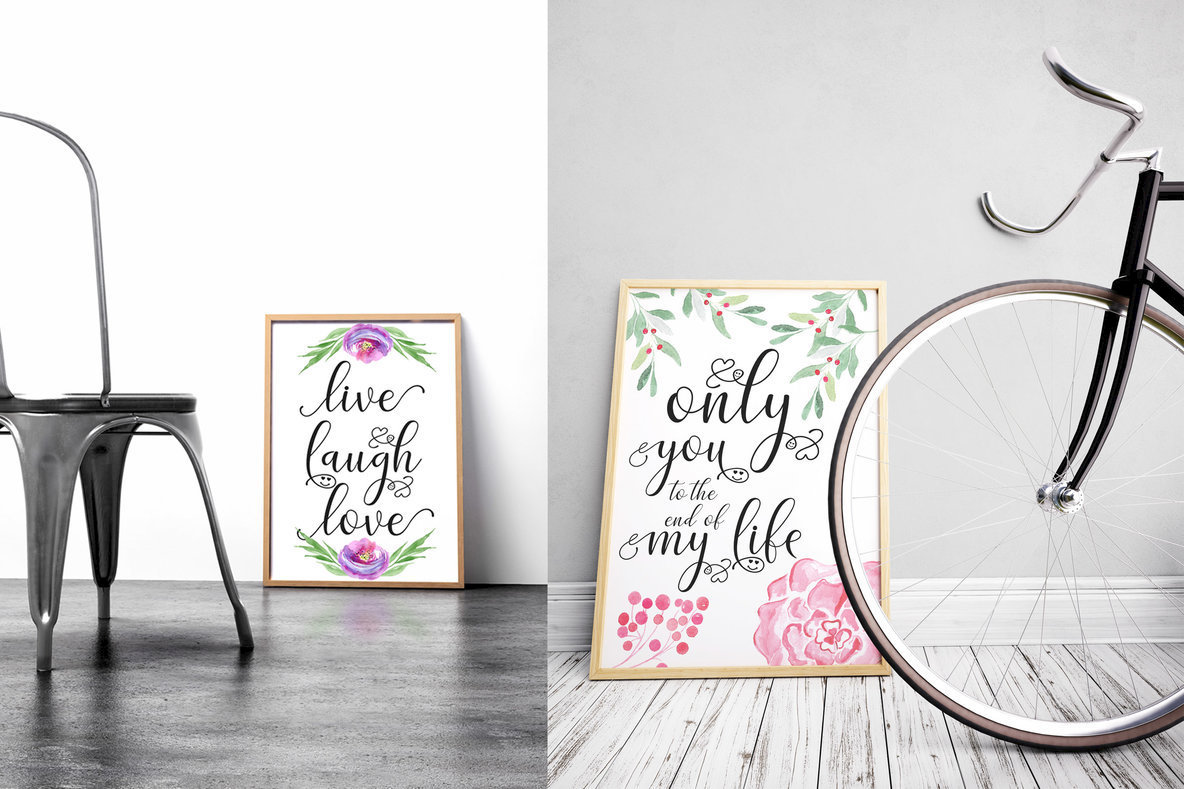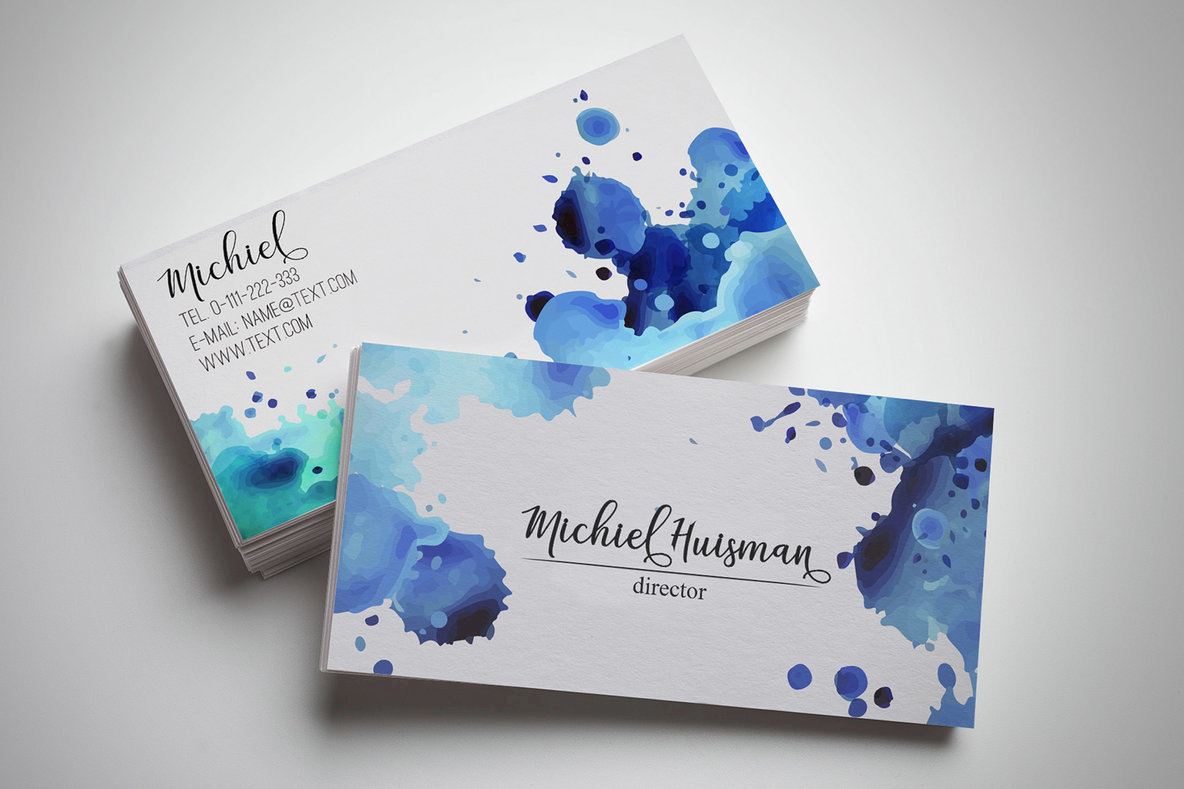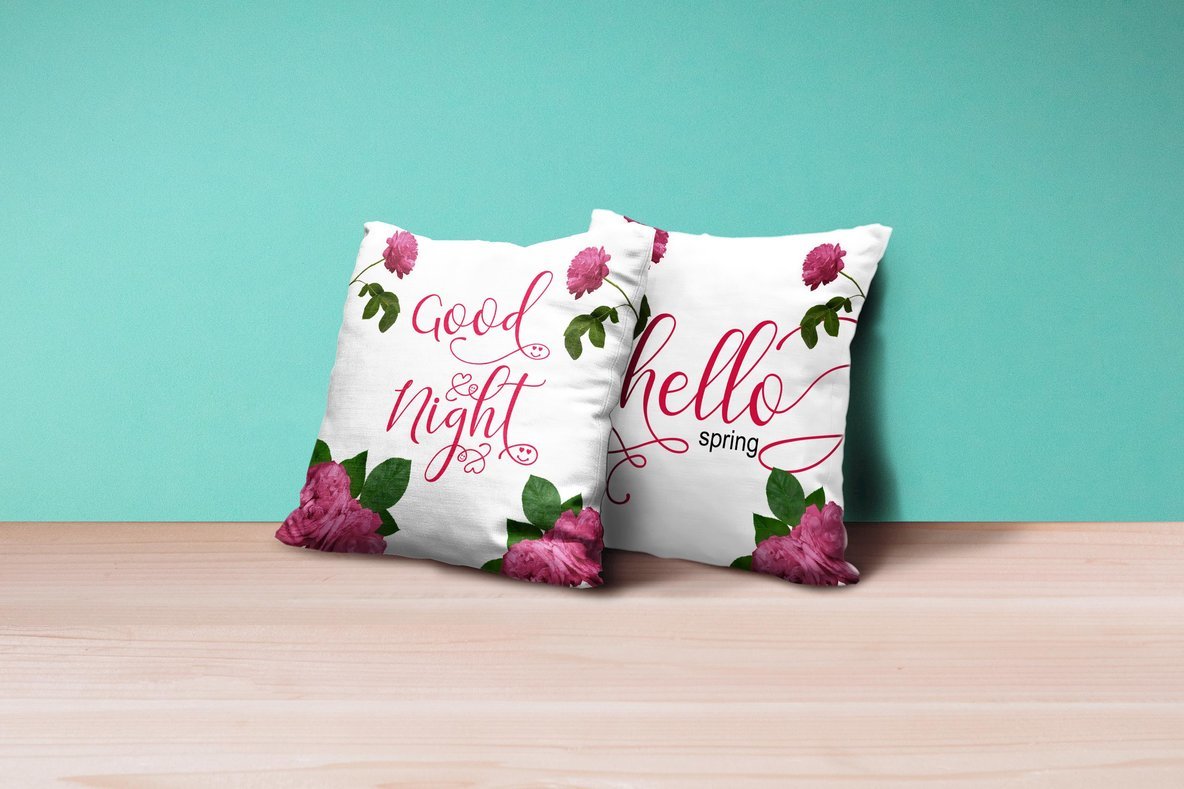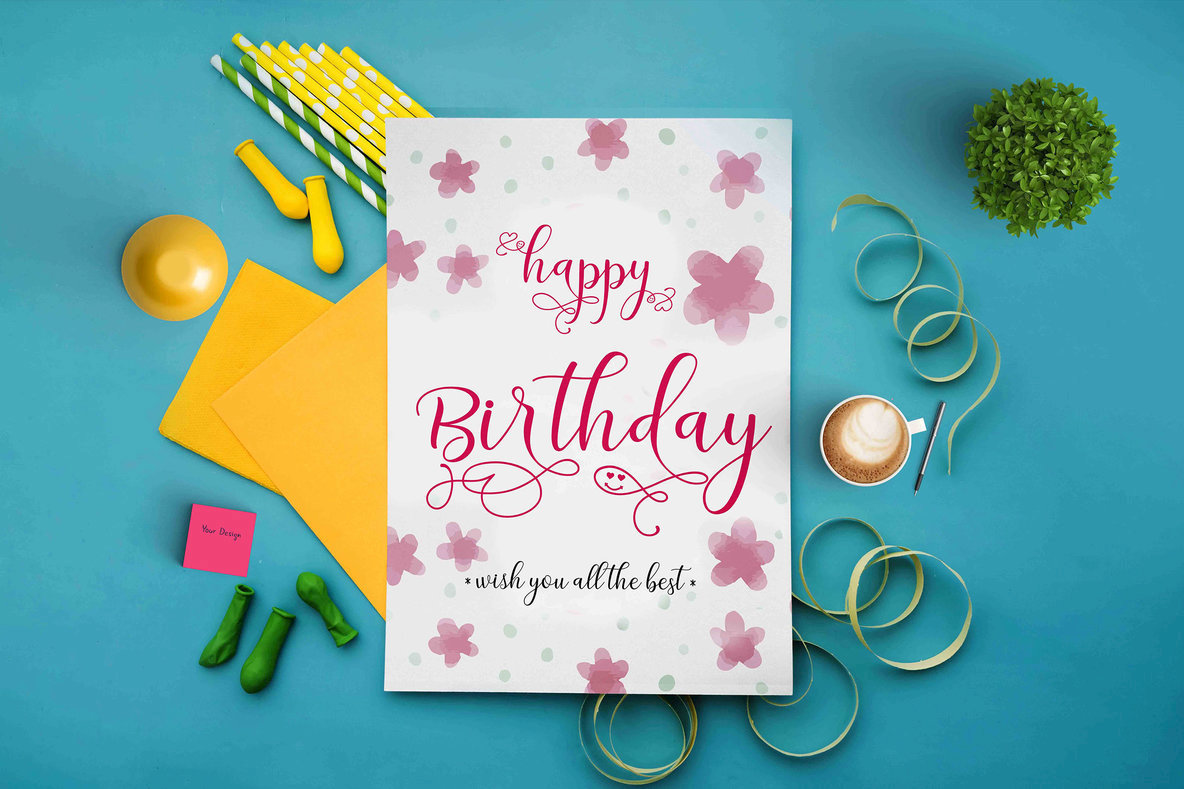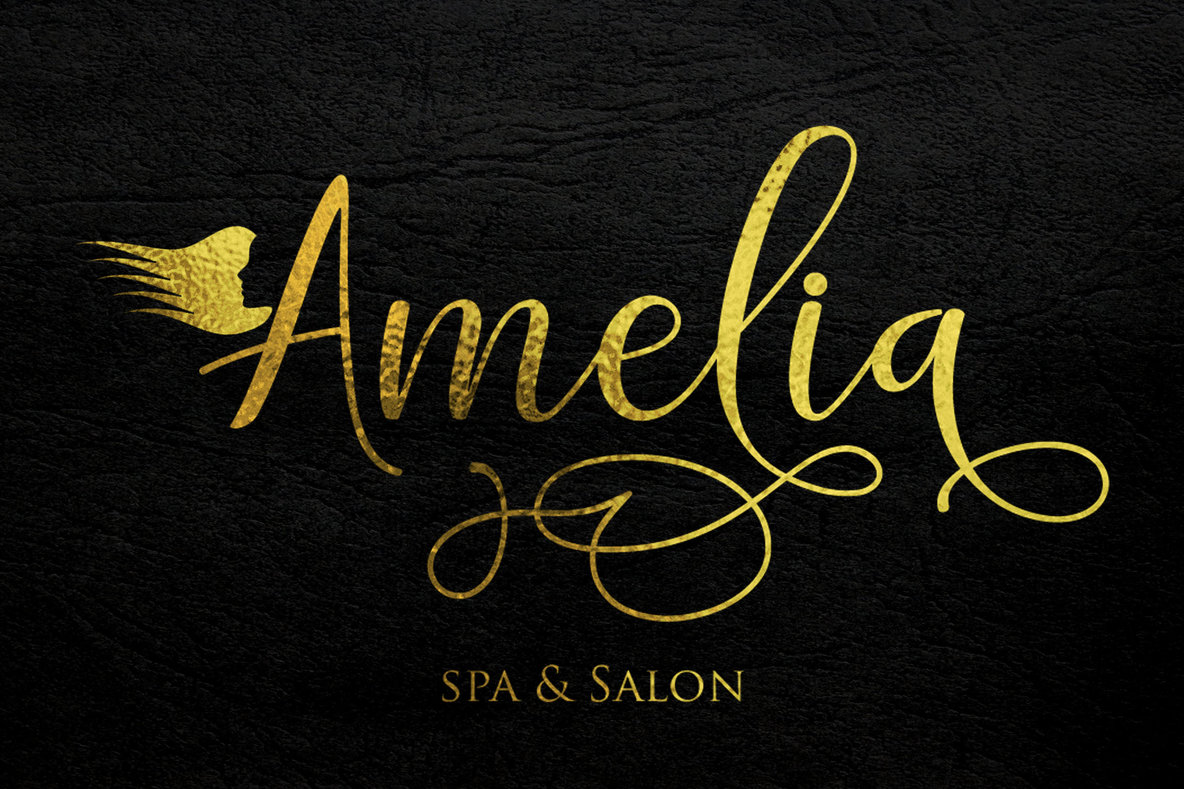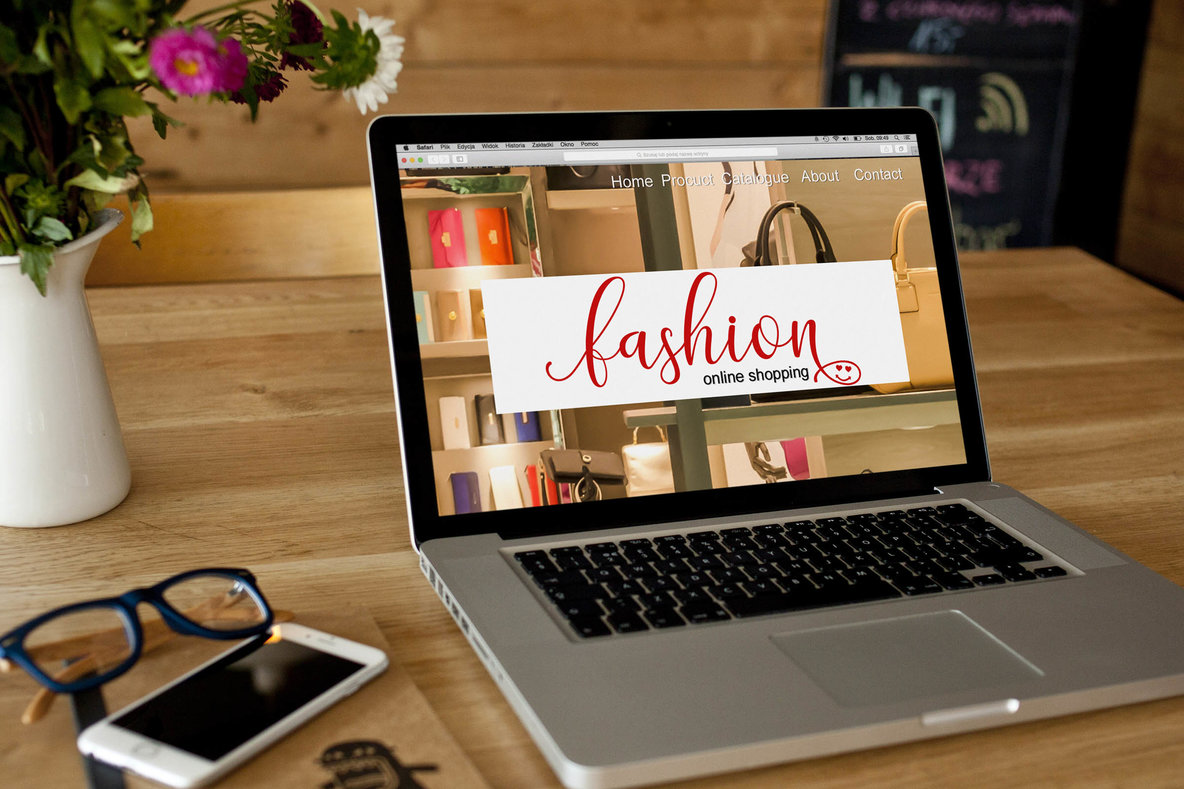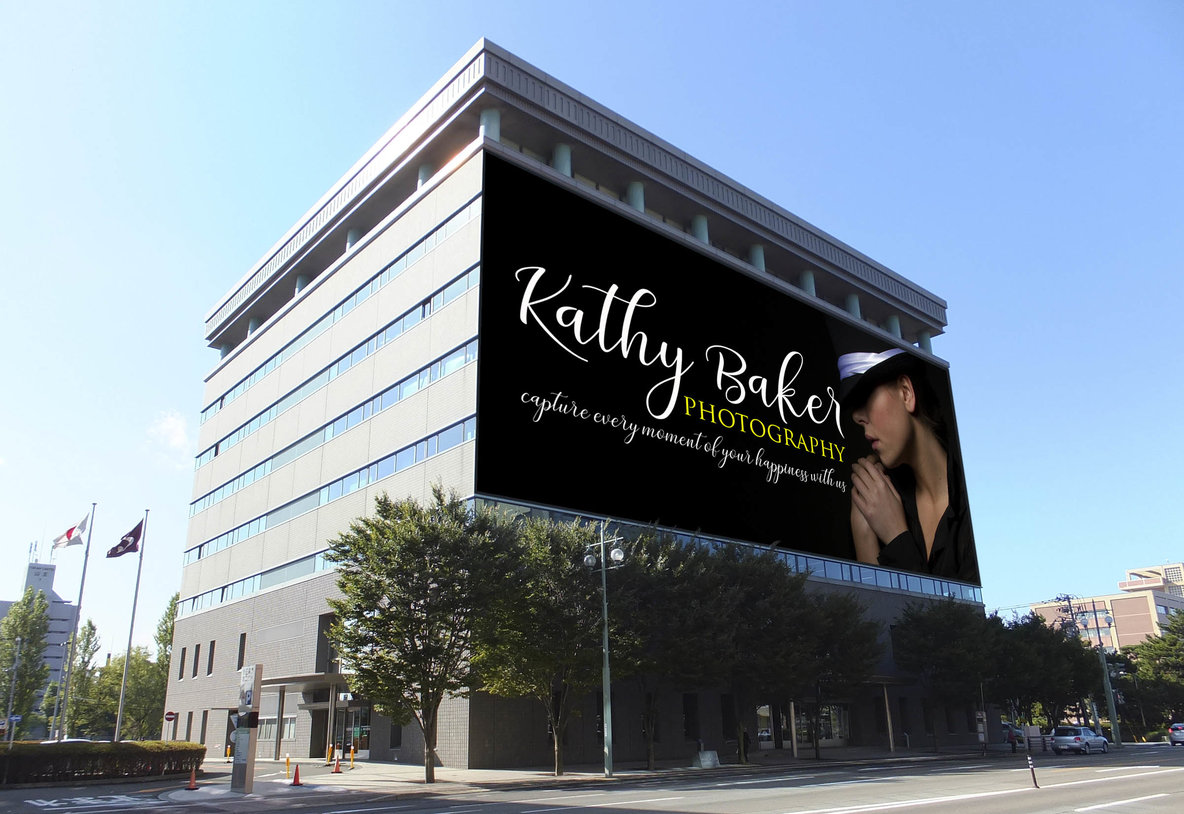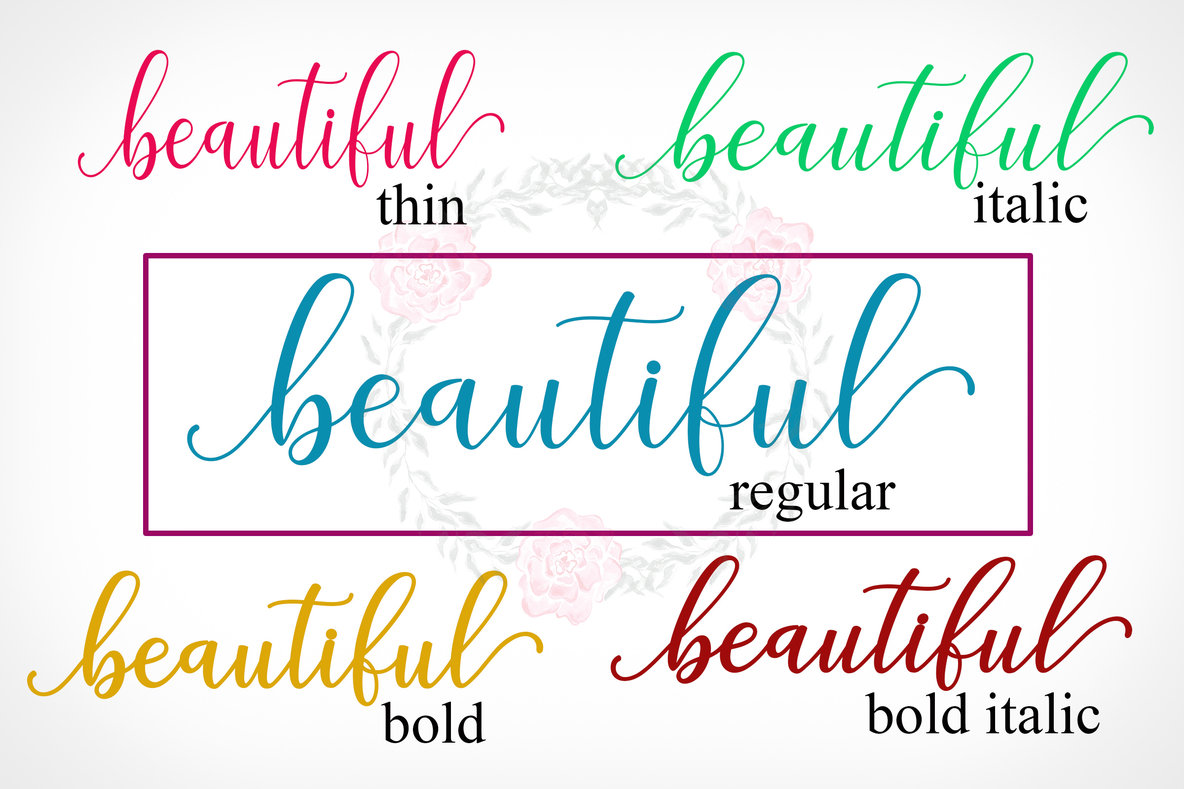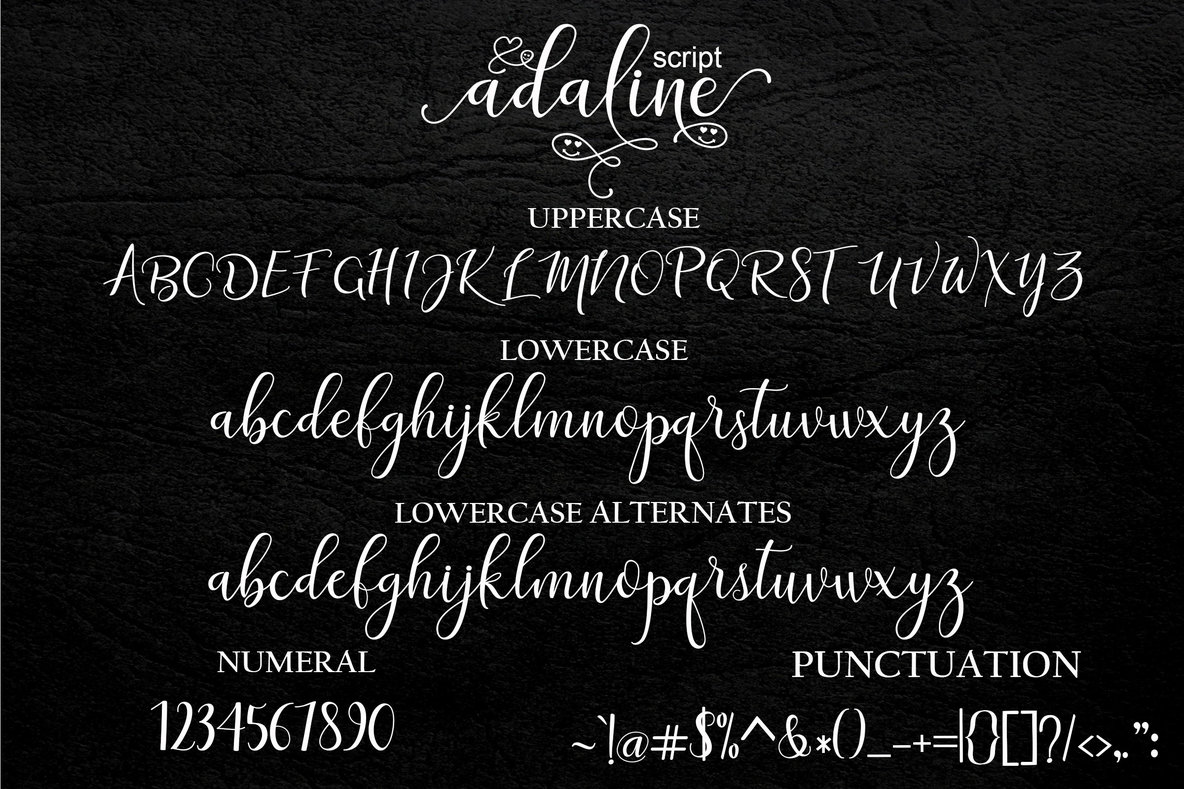
Adaline Script Font
Adaline Script brings a harmonious blend of freshness and modernity to your design projects. Its handmade calligraphy style, decorative characters, and dynamic baseline make it an ideal choice for invitations, greeting cards, branding materials, business cards, quotes, and posters. With an impressive collection of over 500 glyphs, Adaline Script offers versatility via a number of OpenType features, such as Swash, Stylistic Sets, Stylistic and Contextual Alternates. These features integrate seamlessly across popular design software, enhancing your creative flexibility.Adaline Script: Handcrafted Elegance in Modern Calligraphy